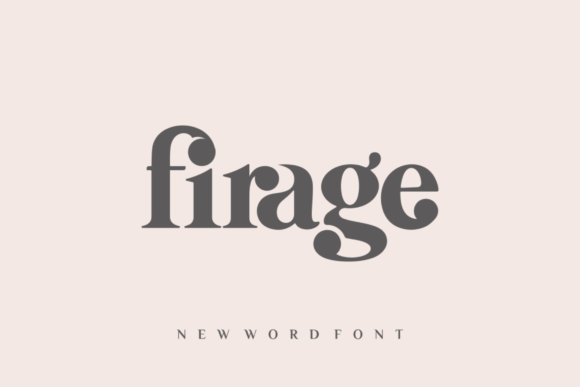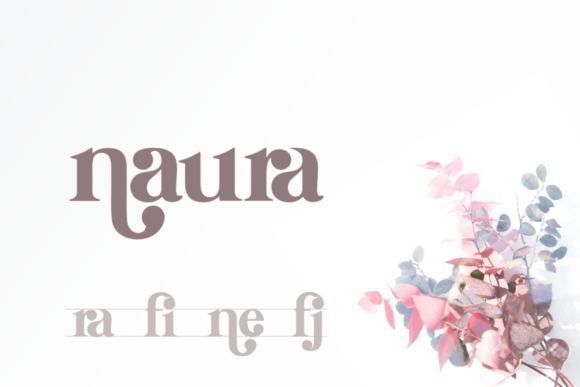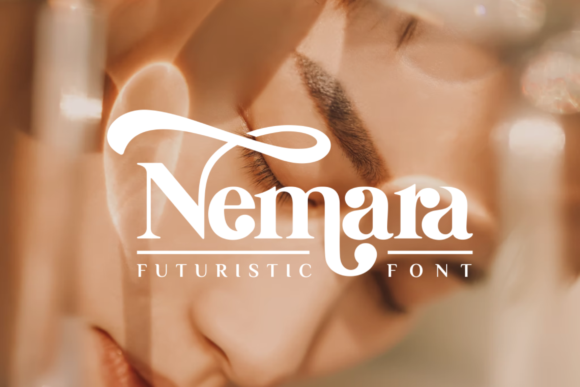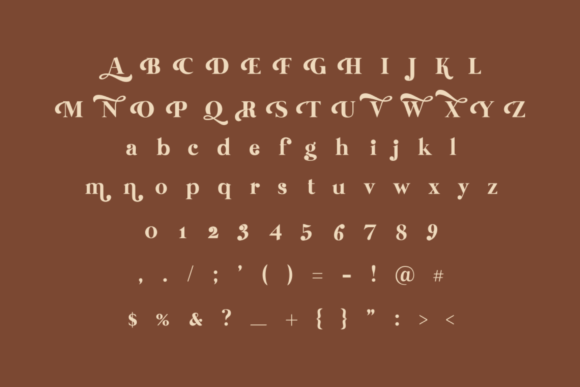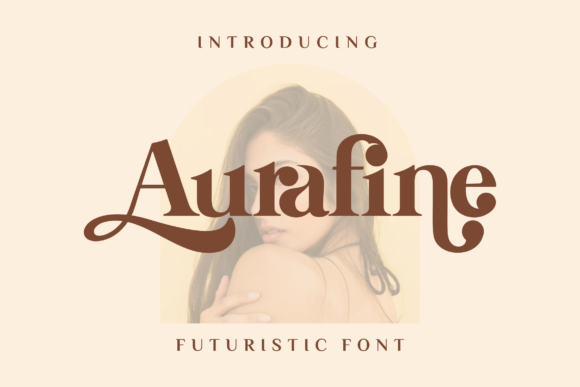
Aurafine Font: Elevate Your Designs with a Bold and Authentic Serif
In the world of typography, a font can make or break a design. It’s the foundation upon which your creative vision is built, and choosing the right one can be a daunting task. If you’re on the hunt for a bold and authentic serif font that can elevate your branding projects, look no further than Aurafine. In this article, we’ll dive into the world of Aurafine Font, exploring its features, uses, and benefits for designers and crafters alike.
What is Aurafine Font?
Aurafine is a bold and authentic serif font designed to make a statement. Its sturdy and confident lines exude a sense of sophistication and elegance, making it perfect for a wide range of applications. Whether you’re working on a logo, t-shirt printing, esport, or any other branding project, Aurafine is the ideal choice. Its versatility and adaptability make it a valuable addition to any designer’s toolkit.
Key Features of Aurafine Font
• Bold and Authentic: Aurafine’s serif design gives it a classic and timeless feel that’s perfect for creating a lasting impression.
• Highly Versatile: This font is suitable for a wide range of contexts, from logos and branding to t-shirt printing and esport.
• Easy to Read: Aurafine’s clear and legible design ensures that your message gets across, no matter the medium.
• Scalable: This font performs beautifully at various sizes, from small captions to large headlines.
Uses of Aurafine Font
Aurafine’s adaptability makes it an excellent choice for various design projects. Here are some of the ways you can use Aurafine Font:
• Logo Design: Create a bold and memorable logo that stands out from the crowd.
• T-Shirt Printing: Add a touch of sophistication to your apparel designs with Aurafine’s stylish and legible font.
• Esport: Give your esport branding a competitive edge with Aurafine’s strong and confident design.
• Branding and Advertising: Use Aurafine to create eye-catching headlines, captions, and taglines that capture your audience’s attention.
Benefits of Using Aurafine Font
So, why choose Aurafine Font for your design projects? Here are some benefits that set it apart:
• Unique and Memorable: Aurafine’s bold design ensures that your work stands out and leaves a lasting impression.
• Time-Saving: With its versatility and adaptability, Aurafine saves you time and effort in finding the perfect font for your project.
• Professional and Sophisticated: Aurafine’s classic and elegant design adds a touch of professionalism to your work, making it perfect for businesses and individuals alike.
Tips and Tricks for Using Aurafine Font
To get the most out of Aurafine Font, here are some tips and tricks to keep in mind:
• Experiment with Colors: Try pairing Aurafine with different colors to create a unique and eye-catching design.
• Mix and Match: Combine Aurafine with other fonts to create a visually appealing and dynamic design.
• Pay Attention to Spacing: Make sure to adjust the spacing and kerning to ensure that your text is clear and legible.
Aurafine Font is a bold and authentic serif font that’s perfect for designers and crafters looking to elevate their branding projects. Its versatility, adaptability, and classic design make it an excellent choice for a wide range of applications. With its unique and memorable style, Aurafine is sure to make your work stand out and leave a lasting impression. So why wait? Download Aurafine Font today and take your designs to the next level!